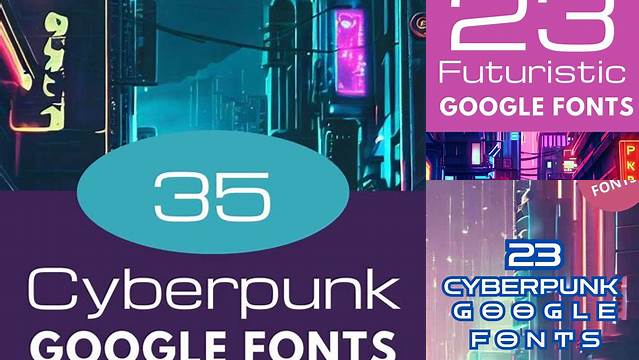
Futuristic Google Fonts: Free Picks For Modern Design
Hey everyone! Are you ready to dive into the sleek and stylish world of futuristic Google Fonts? In this guide, we're going to explore some incredible fonts that will give your designs that cutting-edge, modern feel. Whether you're working on a website, a poster, or any other creative project, choosing the right font can make all the difference. So, let's get started and discover some awesome free options!
What are Futuristic Google Fonts?
Futuristic fonts, guys, are all about conveying a sense of innovation, technology, and the future. They often feature clean lines, geometric shapes, and a minimalist aesthetic. Think of fonts you might see in sci-fi movies or tech company logos. These fonts can add a unique and impactful touch to your designs, making them stand out from the crowd. When we talk about futuristic Google Fonts, we're referring to fonts that are available for free on Google Fonts and have that modern, forward-looking vibe. These fonts are super accessible and easy to use in your projects.
Why Use Futuristic Fonts?
Using futuristic fonts can instantly give your design a modern and tech-savvy look. They're perfect for projects that aim to convey innovation, progress, or a sense of the future. For instance, if you're designing a website for a tech startup, a futuristic font can help communicate the company's cutting-edge approach. Similarly, for a poster promoting a sci-fi event, these fonts can set the right mood and attract the target audience. The clean and minimalist nature of many futuristic fonts also makes them highly readable, which is crucial for effective communication. Choosing the right font can elevate your design, making it more visually appealing and professional.
Best Free Futuristic Google Fonts for Websites
When it comes to websites, readability is key, but that doesn't mean you have to sacrifice style. Some of the best free futuristic Google Fonts for websites include 'Montserrat,' 'Roboto,' and 'Exo 2.' 'Montserrat' is a geometric sans-serif font that offers a clean and modern look, perfect for headlines and body text alike. 'Roboto' is another versatile option with a slightly more mechanical feel, making it great for tech-related websites. 'Exo 2' is a more stylized font with rounded corners, giving it a friendly yet futuristic appearance. These fonts are not only visually appealing but also highly legible, ensuring a positive user experience. Using them can help you create a website that looks professional and cutting-edge without compromising readability.
Top Free Futuristic Google Fonts for Logos
A logo is the face of a brand, and the font you choose can significantly impact how your brand is perceived. For logos, you want something that's both distinctive and memorable. Some top free futuristic Google Fonts for logos include 'Bebas Neue,' 'Oswald,' and 'Rajdhani.' 'Bebas Neue' is a tall and narrow sans-serif font that exudes confidence and modernity. 'Oswald' is a slightly condensed sans-serif font that works well in various sizes and adds a touch of sophistication. 'Rajdhani' is a bolder option with a strong, industrial feel, perfect for tech or engineering companies. These fonts can help you create a logo that stands out and effectively communicates your brand's identity. Remember to consider your brand's personality and target audience when choosing a font for your logo.
How to Pair Futuristic Fonts with Other Fonts
Paring futuristic fonts with other fonts can be a bit tricky, but when done right, it can create a visually stunning and balanced design. The key is to find fonts that complement each other without competing for attention. For example, you can pair a futuristic sans-serif font like 'Montserrat' with a classic serif font like 'Merriweather' for a sophisticated contrast. Alternatively, you can combine a bold futuristic font like 'Bebas Neue' with a lighter, more understated sans-serif font like 'Open Sans' to create a clear visual hierarchy. Experiment with different combinations and pay attention to the overall harmony and readability of your design. A good rule of thumb is to limit yourself to two or three fonts per project to avoid overwhelming the viewer.
Designing Posters with Free Futuristic Google Fonts
Posters are all about grabbing attention, and the right font can make all the difference. When designing posters with free futuristic Google Fonts, consider using bold and eye-catching options like 'Anton' or 'Passion One' for headlines. These fonts have a strong visual impact and can instantly draw the viewer's eye. For body text, opt for a more readable font like 'Roboto' or 'Lato' to ensure that your message is clear and easy to understand. Experiment with different font sizes and weights to create a visual hierarchy and highlight the most important information. Remember to balance the futuristic fonts with other design elements like colors and images to create a cohesive and visually appealing poster.
Using Futuristic Fonts in Mobile Apps
In the world of mobile apps, user experience is paramount, and the font you choose can significantly impact how users interact with your app. When using futuristic fonts in mobile apps, prioritize readability and clarity. Opt for fonts like 'Open Sans,' 'Roboto,' or 'Lato,' which are highly legible on small screens. Avoid overly stylized or decorative fonts that can strain the eyes and make it difficult to read text. Consider using different font sizes and weights to create a clear visual hierarchy and guide users through the app's interface. Remember to test your font choices on different devices and screen sizes to ensure optimal readability and user experience. A well-chosen font can enhance the overall look and feel of your app, making it more enjoyable and user-friendly.
Tips for Choosing the Right Futuristic Font
Choosing the right futuristic font can feel overwhelming, but here are a few tips to help you make the best decision. First, consider the overall tone and message of your project. Are you aiming for a sleek and modern look, or something more playful and edgy? Choose a font that aligns with your project's personality. Second, think about readability. While futuristic fonts can be visually striking, they should also be easy to read, especially for body text. Third, experiment with different font pairings to see what works best. Don't be afraid to try new things and push the boundaries. Finally, always test your font choices on different devices and screen sizes to ensure optimal readability and visual appeal. By following these tips, you can find the perfect futuristic font for your project.
Where to Find More Free Futuristic Google Fonts
Besides Google Fonts, there are several other resources where you can find free futuristic Google Fonts. Websites like Font Squirrel, DaFont, and Behance offer a wide variety of free fonts, including many with a futuristic aesthetic. When downloading fonts from these sources, be sure to check the license agreement to ensure that you're allowed to use them for your intended purpose. Also, pay attention to the quality and readability of the fonts. Not all free fonts are created equal, so it's important to choose options that are well-designed and easy to read. By exploring these additional resources, you can expand your font library and discover even more free futuristic Google Fonts for your projects.
The Art of Kerning and Tracking with Futuristic Fonts
Kerning and tracking are essential typography techniques that can significantly impact the readability and visual appeal of your designs. Kerning refers to the adjustment of space between individual letters, while tracking refers to the uniform adjustment of space between all letters in a word or phrase. When working with futuristic fonts, pay close attention to kerning and tracking to ensure that the letters are evenly spaced and easy to read. Use typography tools to fine-tune the spacing and create a visually balanced and harmonious design. Mastering these techniques can elevate your designs and make them more professional.